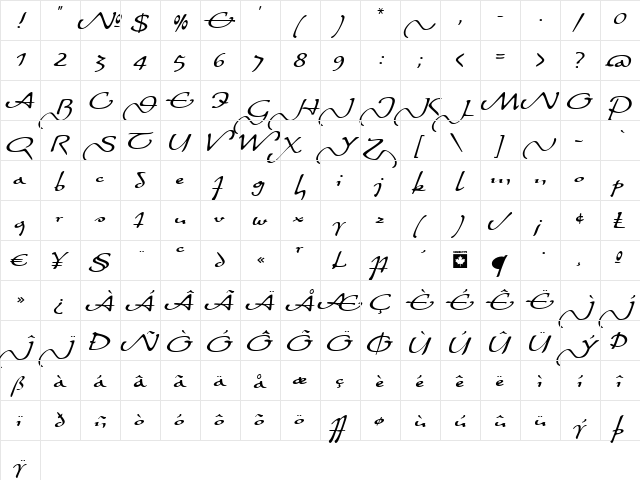
Quiller Swash Regular
Design Context for Quiller Swash Typeface
Quiller Swash brings a calligraphic fluidity to the page — its connecting strokes and expressive curves give it an unmistakably human quality.
Font Pairing: Combine Quiller Swash with a simple geometric sans for maximum contrast — the tension between flowing curves and clean structure is a classic typographic pairing.
Pro Tip: Use Quiller Swash for short runs of text — names, titles, or taglines. Extended body copy in script faces tires the eye quickly.